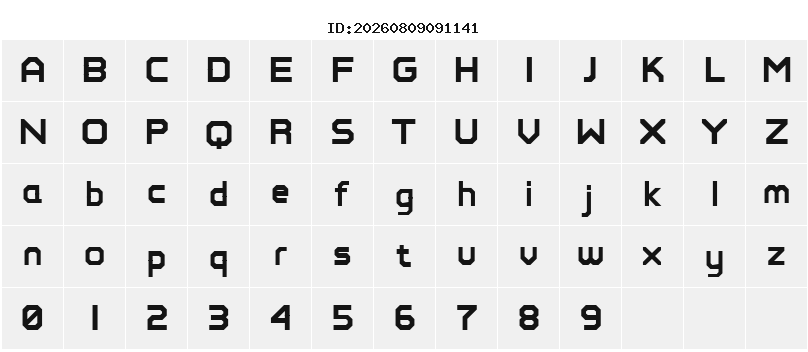
• Font Name: PerfectPixel
About PerfectPixel.ttf
PerfectPixel.ttf is a modern, elegant sans-serif font designed for ultimate readability and visual harmony. Perfect for branding, headlines, web design, and print materials.